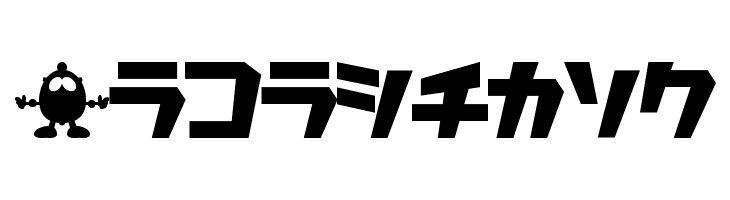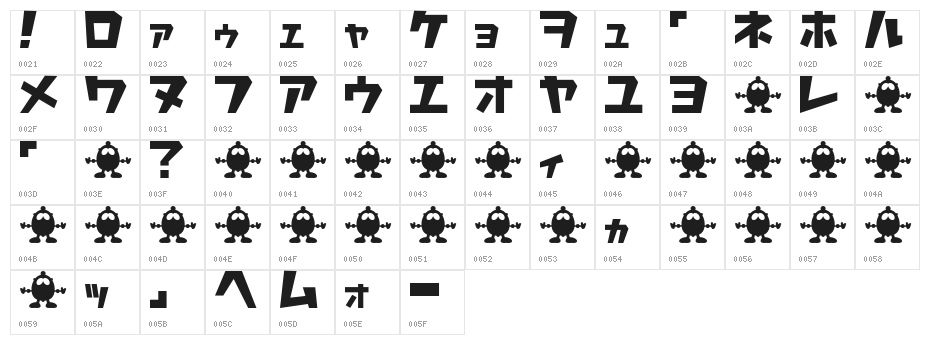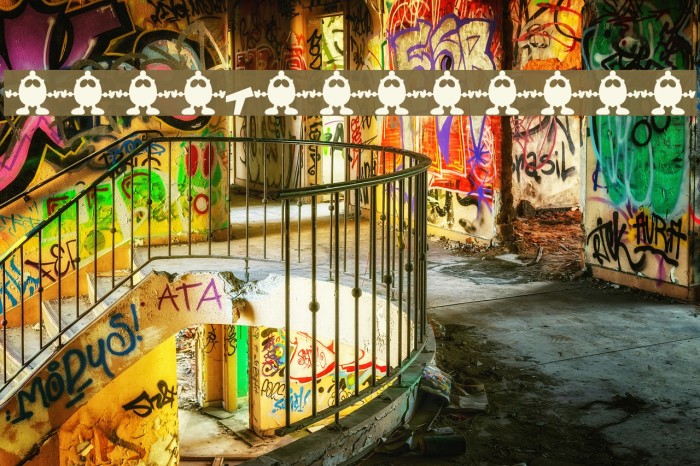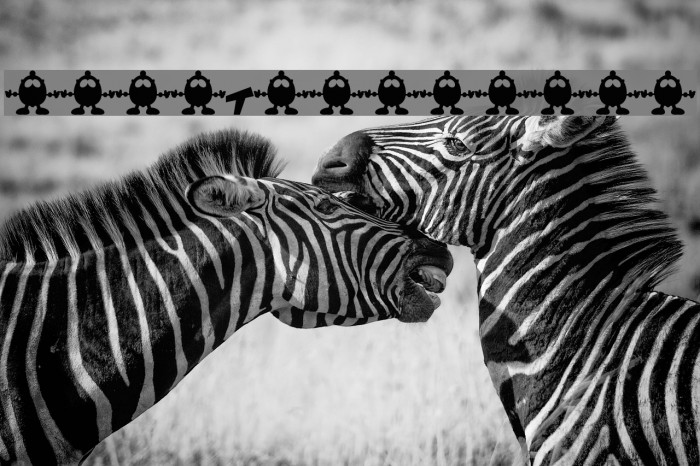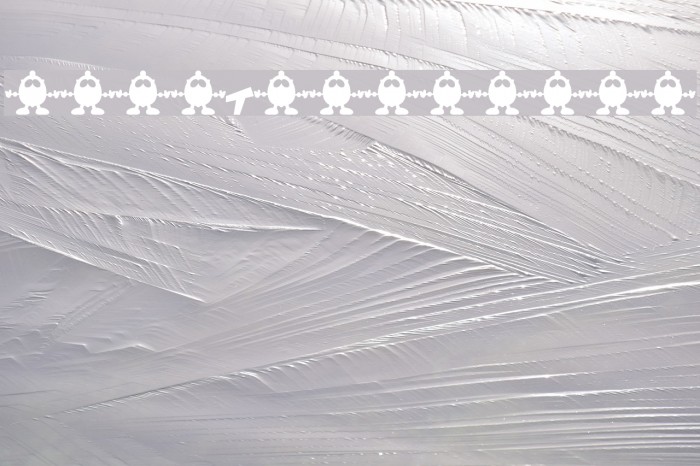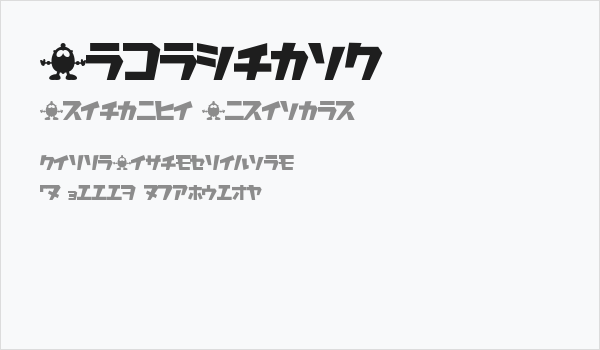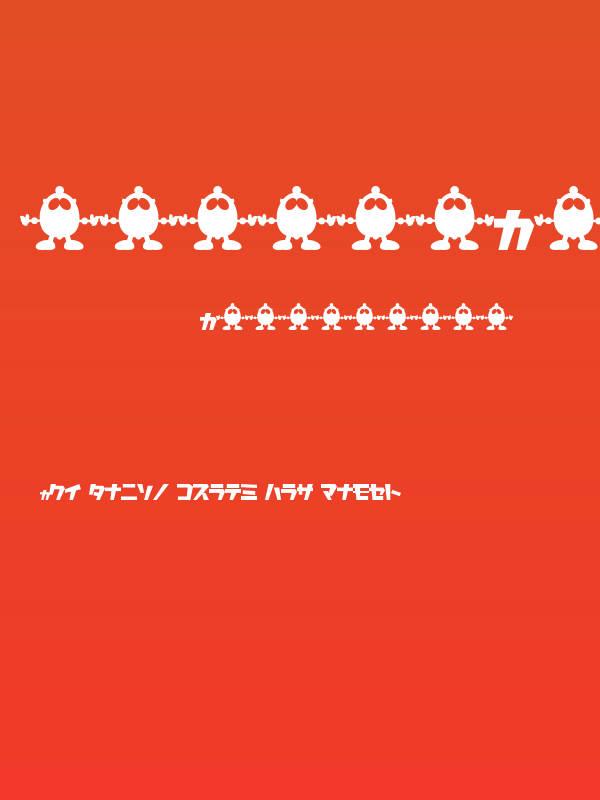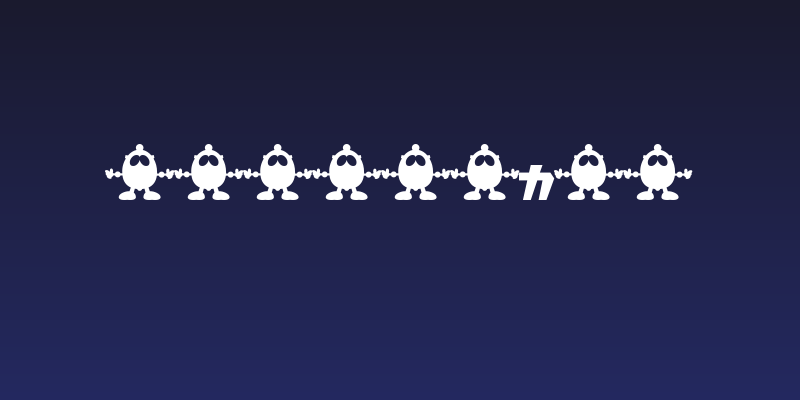
Robodatch Font
Robodatch Description
This font features a playful and whimsical design, characterized by its bold and chunky letterforms. The characters are stylized with a robotic theme, incorporating geometric shapes and angular lines that give it a futuristic and tech-inspired appearance. The font maintains a consistent weight throughout, providing a strong visual impact. Its unique style makes it stand out, with each letter having a distinct personality that contributes to the overall robotic aesthetic. The font is well-suited for creative projects that require a touch of fun and innovation.
| Overall Style | Futuristic, Playful |
| Proposed Projects | Ideal for video game titles, tech-themed posters, children's books, and creative branding. |